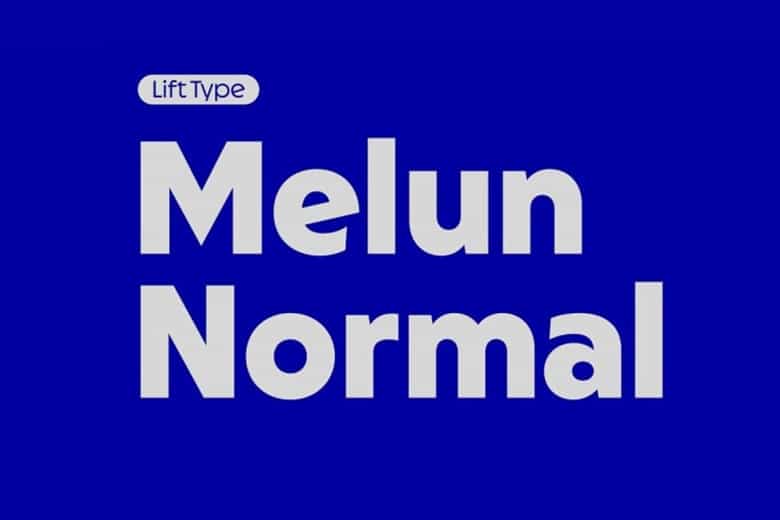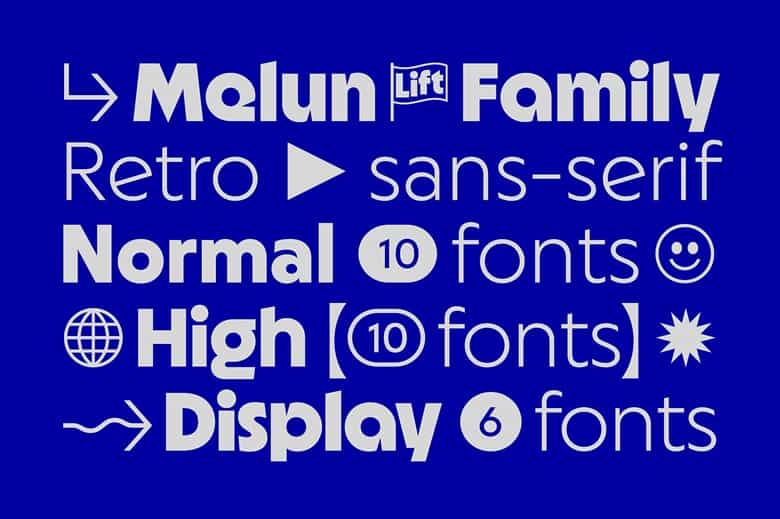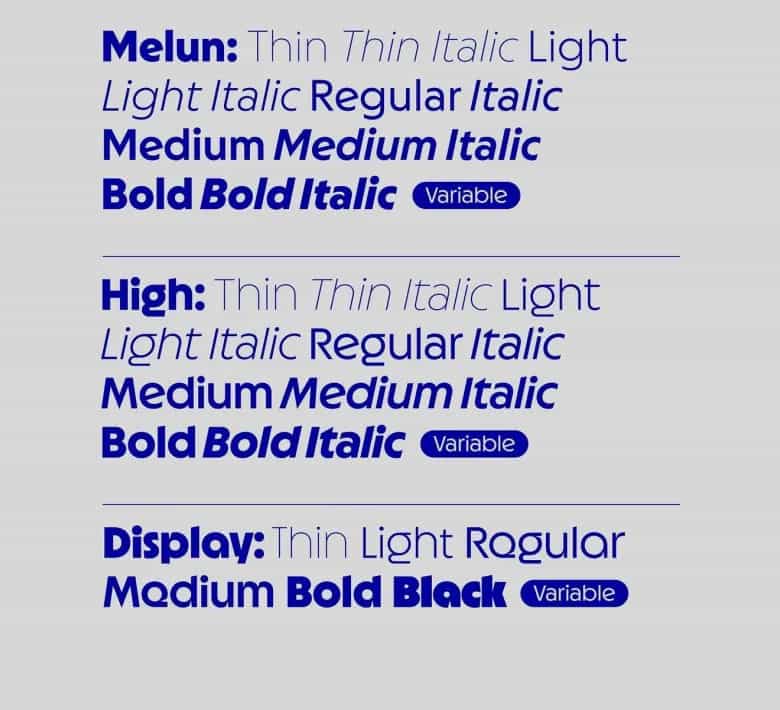
The modern design requirements prompted the creation of Melun which exists as a versatile sans serif font family. Melun (Normal), available in 5 weights + italics. Melun High, a semi-display version with a high x-height, also in 5 weights + italics. And Melun Display, with much more radical shapes, available in 6 weights.